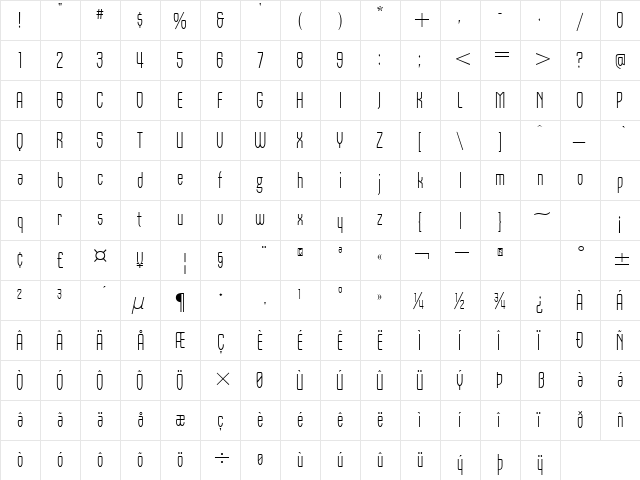
Orbon Light ITC TT Regular
Design Context for Orbon Light ITC TT Typeface
Orbon Light ITC TT offers clean, dependable letterforms without strong stylistic allegiance, making it a practical choice for designers who need flexibility. Its slender proportions lend an understated elegance to any composition.
Pro Tip: Use Orbon Light ITC TT in both headline and body roles to test its range before committing to a single application.